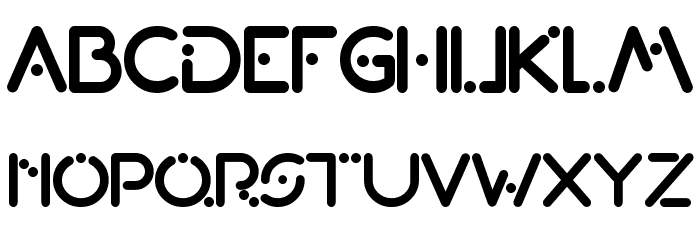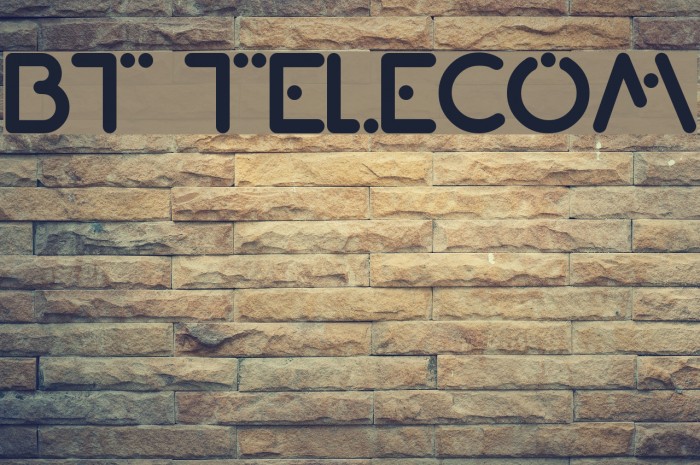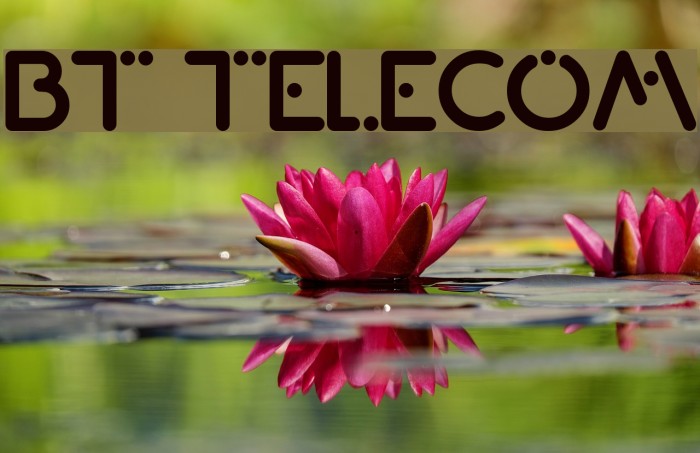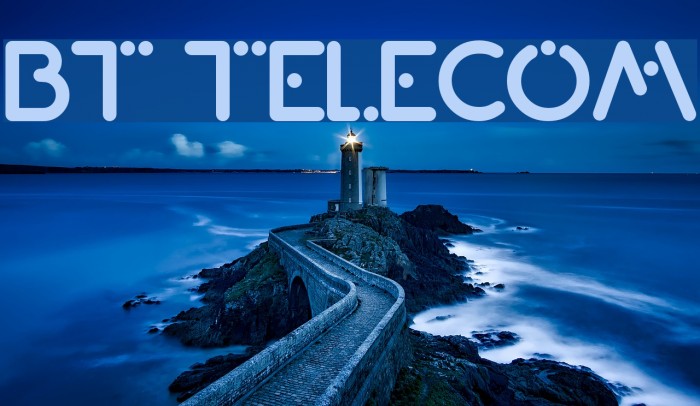
BT Telecom Font
This font features a unique and modern design with a futuristic touch. The characters are bold and rounded, incorporating small circular elements that add a decorative flair. The uppercase letters are consistent in height, with a playful yet structured appearance. The lowercase letters maintain the same stylistic elements, ensuring uniformity across the typeface. Numbers are bold and clear, making them easily readable. Special characters follow the same design principles, providing a cohesive look throughout. This font is ideal for projects that require a modern and innovative aesthetic.
A modern, bold font with circular decorative elements and a futuristic style.
- Proposed Projects: Ideal for tech branding, futuristic designs, digital media, and innovative product packaging.
- Use Case: Headlines, Logos, Branding